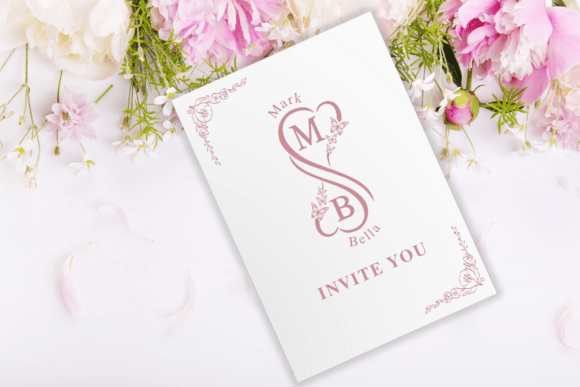
Butterfly Heart Monogram Font
Butterfly Heart Monogram is an elegant font designed for special occasions. It features decorative letters inside a beautiful heart and butterfly round frame, making it perfect for invitations and wedding cards, t-Shirt, mug, logo . This font adds a touch of charm and sophistication to any celebration!